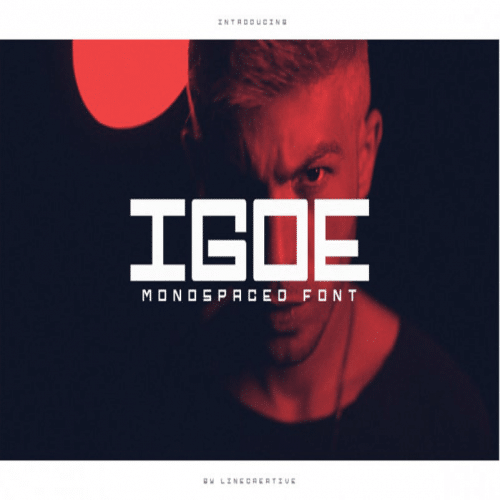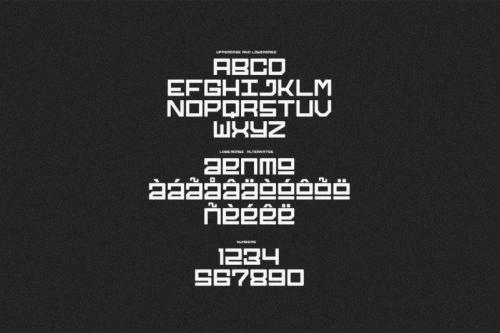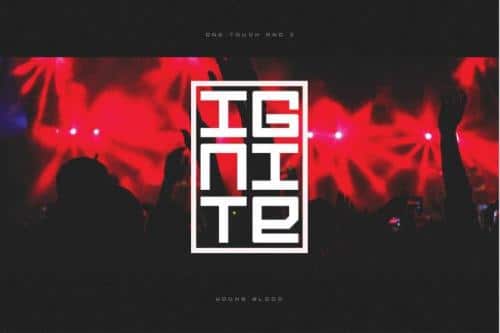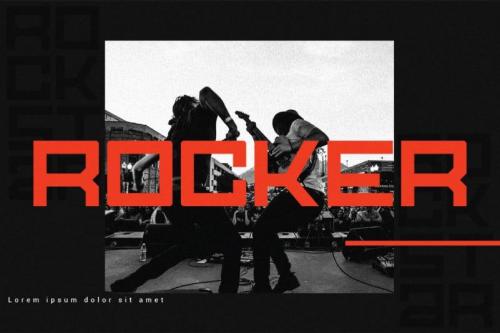
Igoe is a monospaced font gives the impression of being clean and modern, It’s Perfect forlogos, posters, album covers, and website headers.
- Designer: Ari Juanda